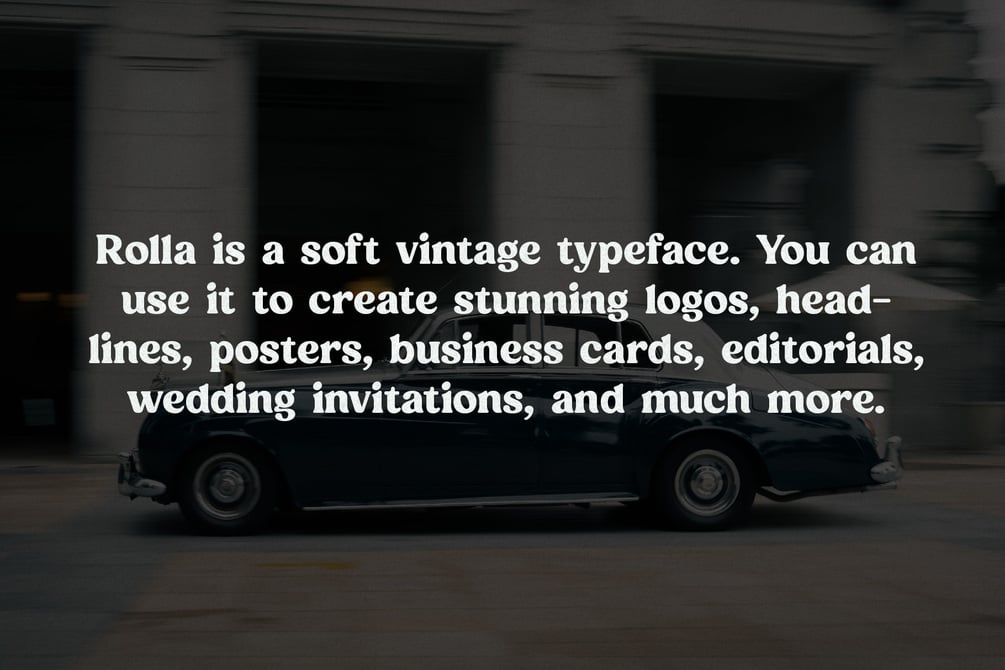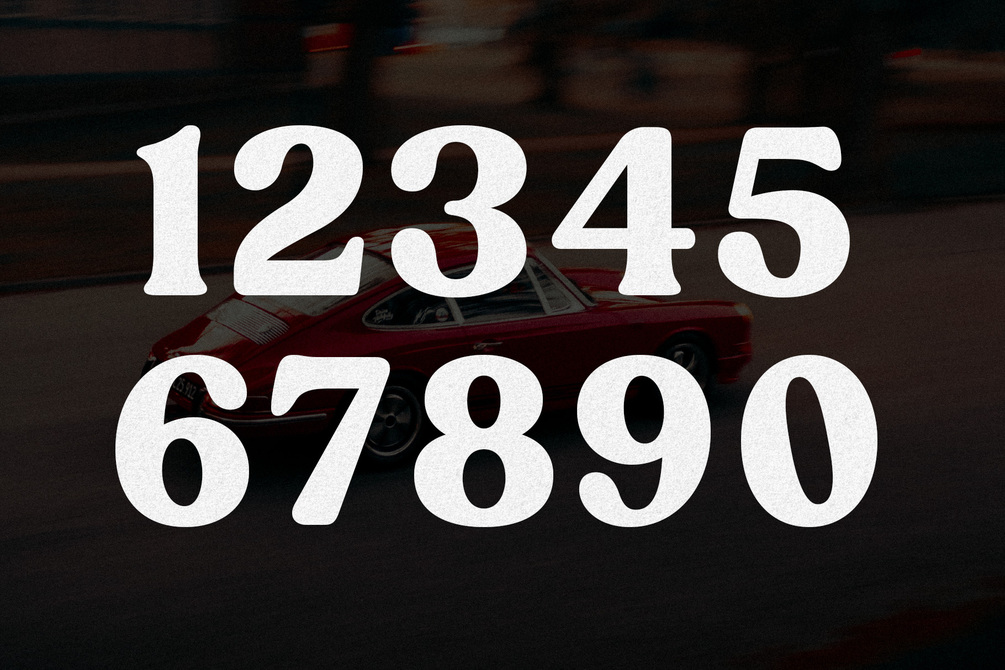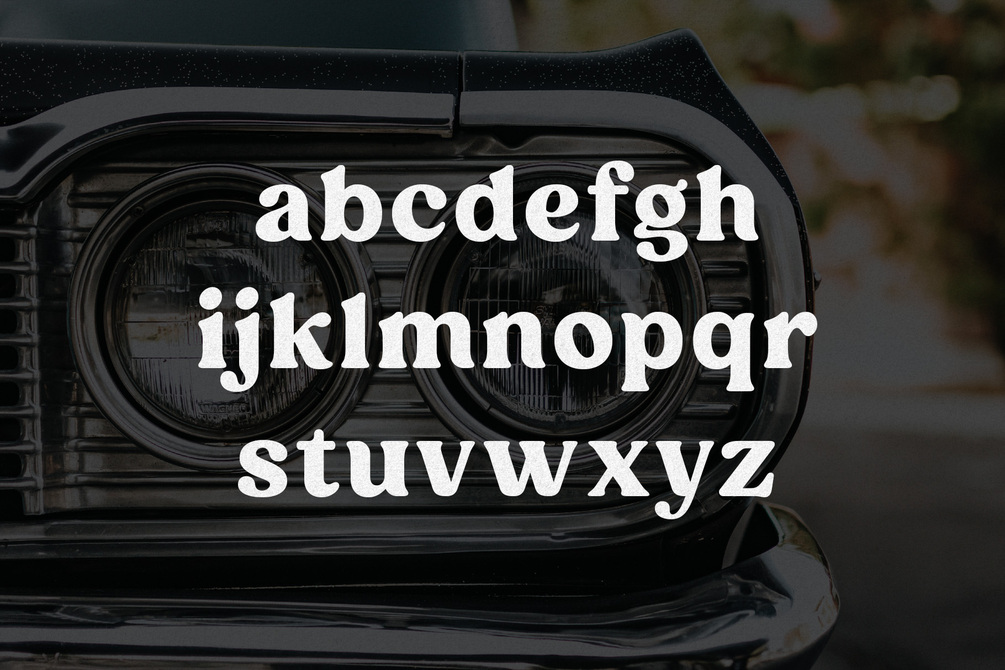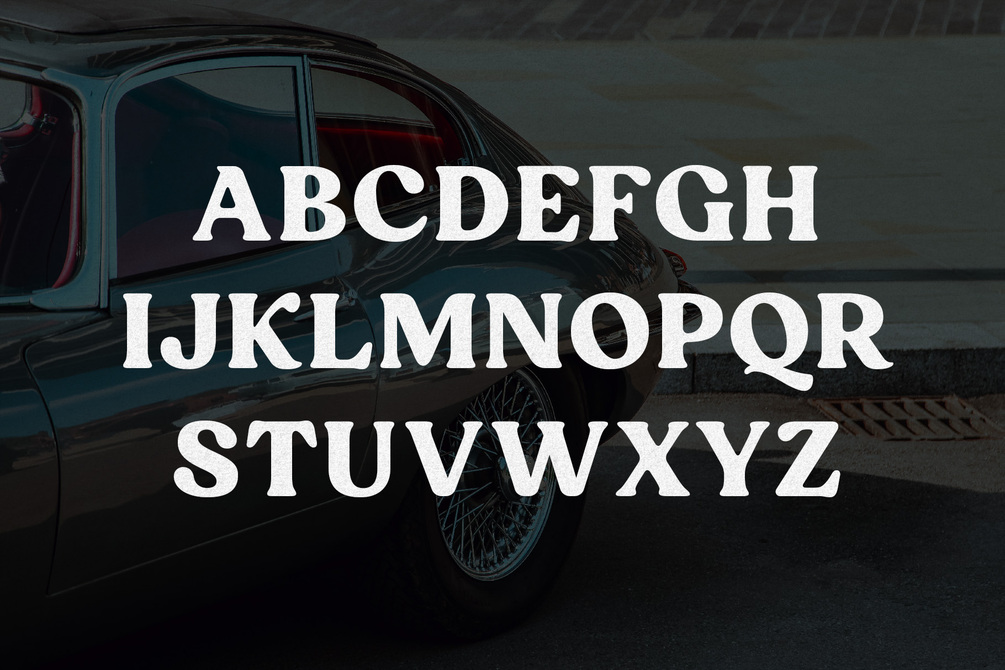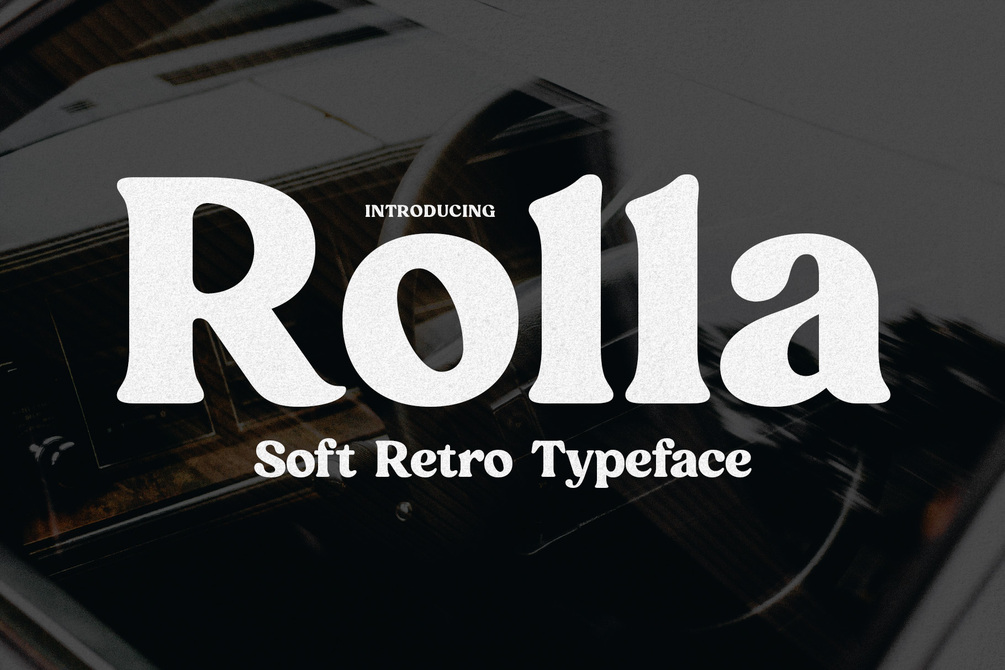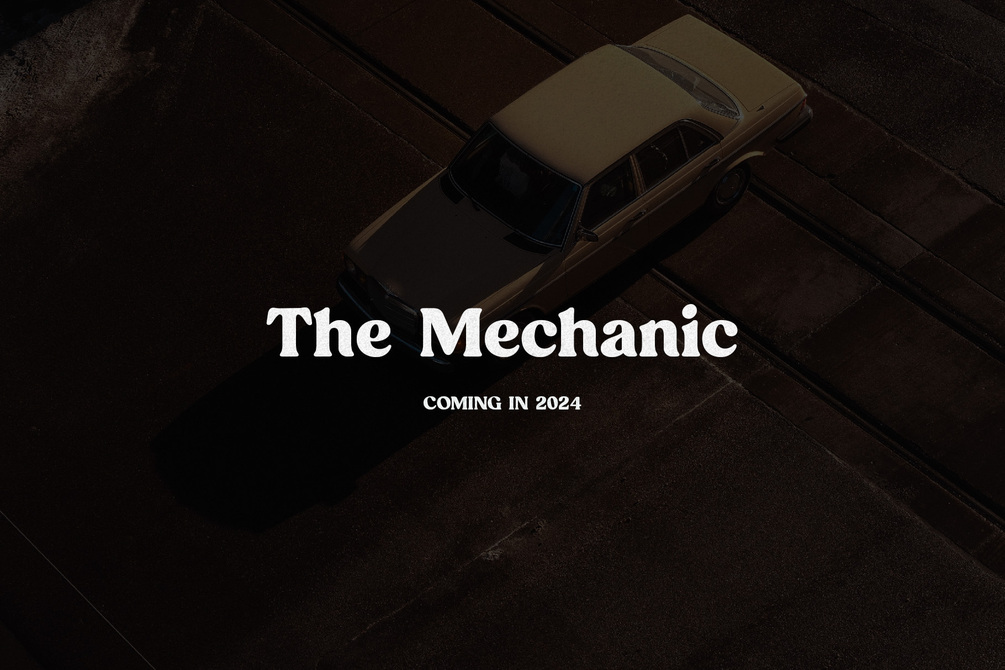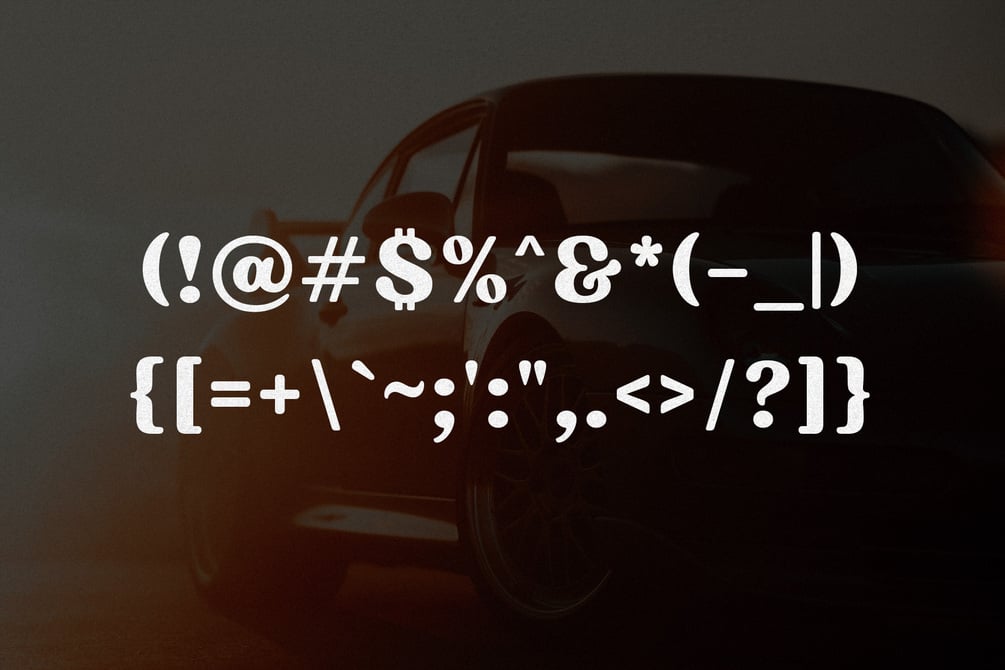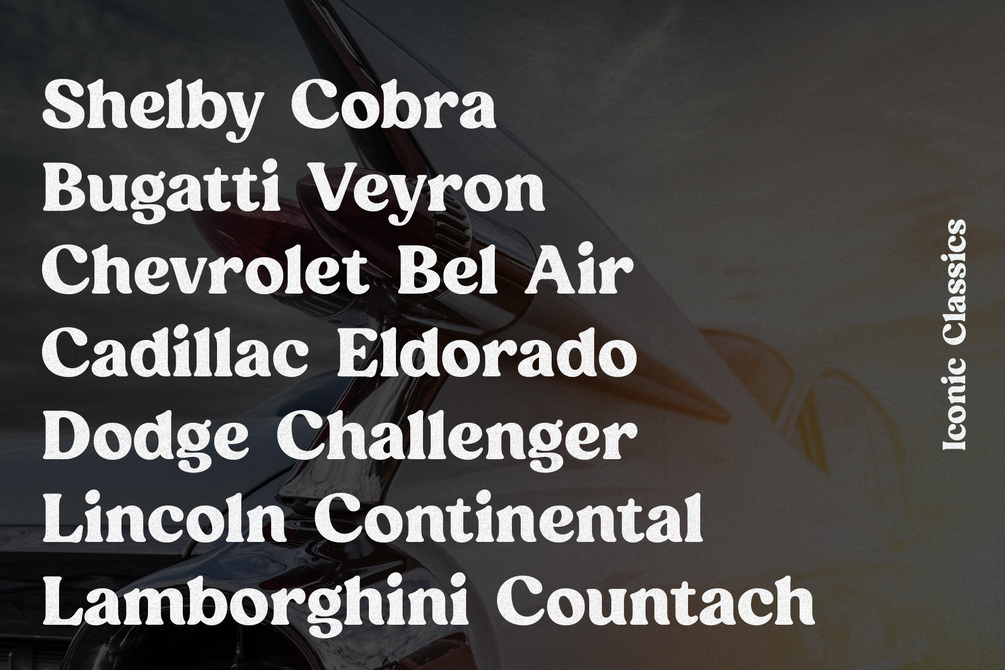
Rolla - Soft Vintage Typeface
Rolla is a bold vintage style serif font. What makes it special is its charming rounded edges and curves. Rollas brings back that chunky retro typography to the modern era.
You can use it for a variety of design projects like posters, business cards, wedding invitations, social media posts, quote photos, branding, editorials, and much more. If you're looking for a typeface that evokes a 1960s-1970s feeling, then Rolla is for you.